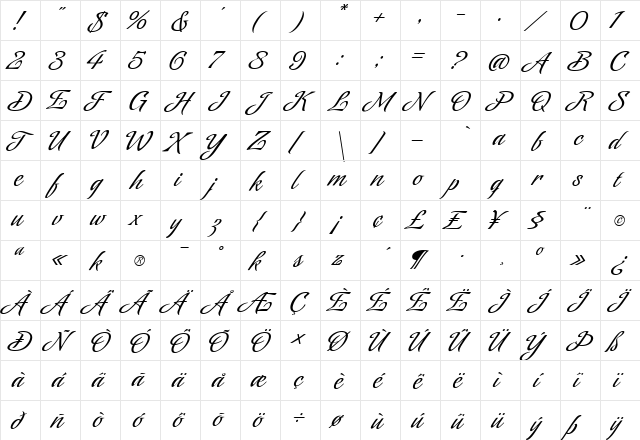
Sinfonieta Regular
| Foundry | Alejandro Paul and Angel Koziupa |
Design Context for Sinfonieta Typeface
Sinfonieta is a composed and adaptable typeface that performs quietly and consistently across a wide range of design contexts.